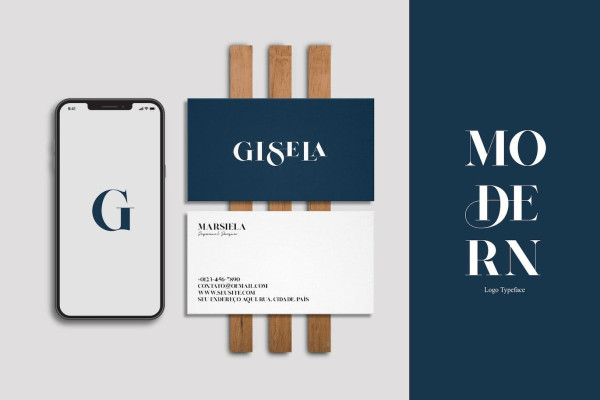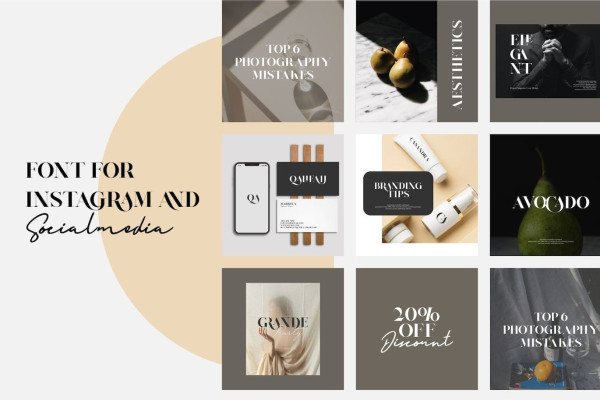
Niagara Font
Niagara Font is a typeface that is flexible and very flexible and is suitable for designs that emphasize aesthetics and beauty. It can display an elegant nature but with an interesting curved shape.
With its unique and graceful curves and the impression of a thinly defined serif, this typeface can evoke a sense of beauty with classy elegance and luxury. Whether used for Branding , Logo wordmark , Logo Lettering , Business Card , Business Stationary , Social Media Template , Wedding Font , invitations , or editorial design, Niagara adds a touch of glamor to any project.
The versatile nature of the Niagara font makes it suitable for both headlines and body text, and its legibility ensures clear communication and can add eye-catching value to any customer who sees it. Niagara fonts is the perfect choice for those looking for a typeface that embodies timeless beauty and sophistication.